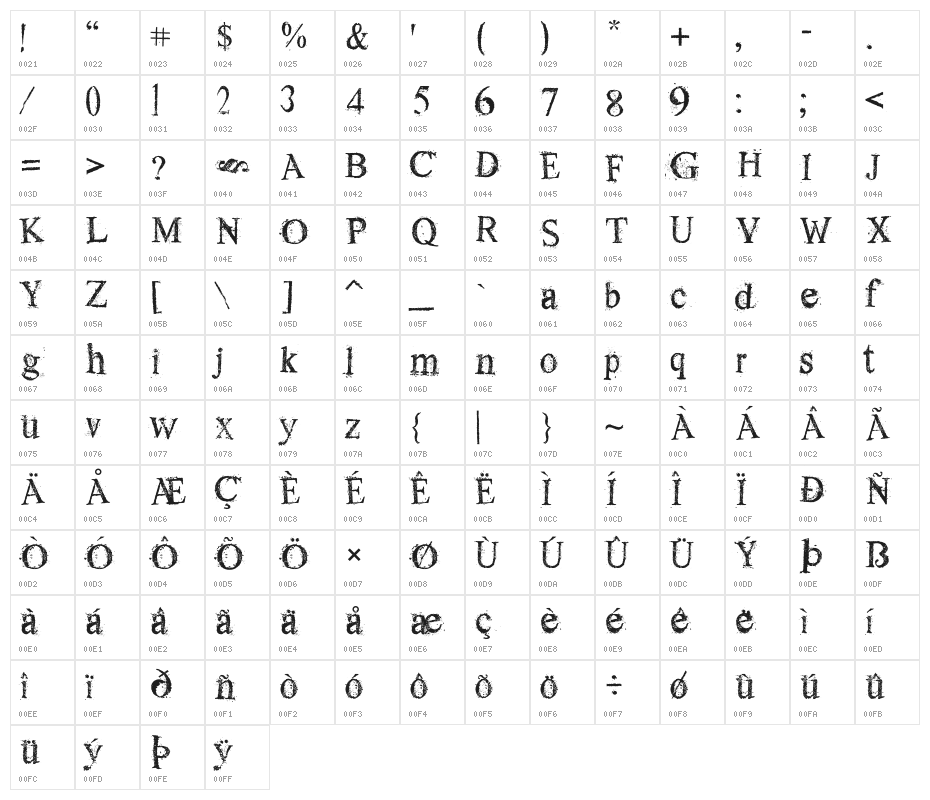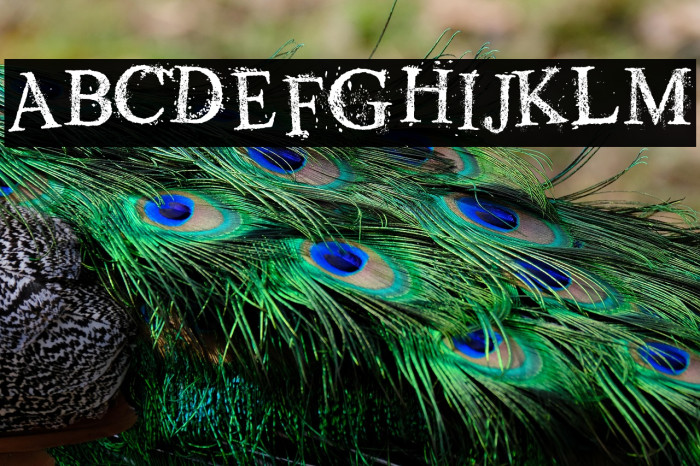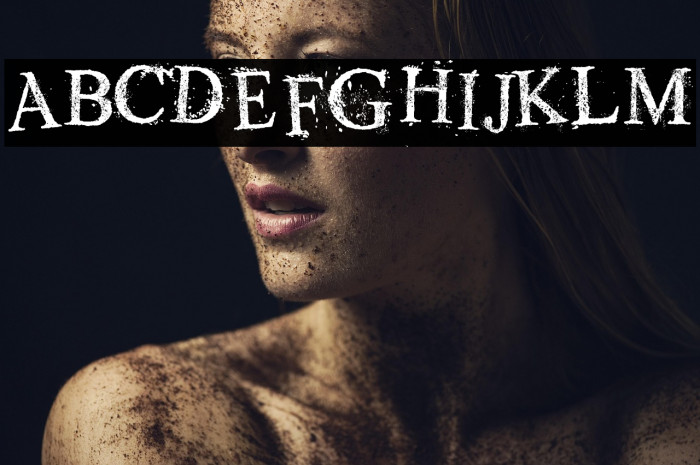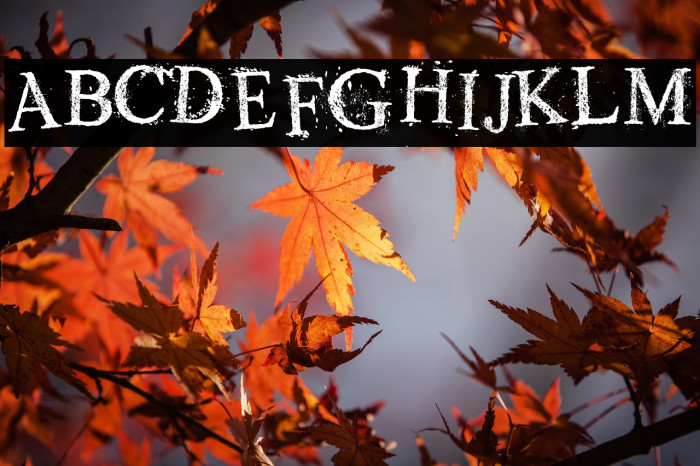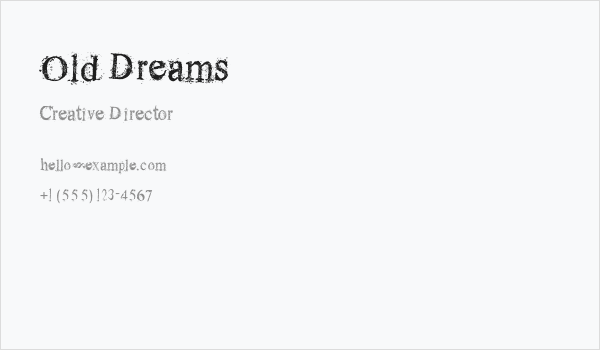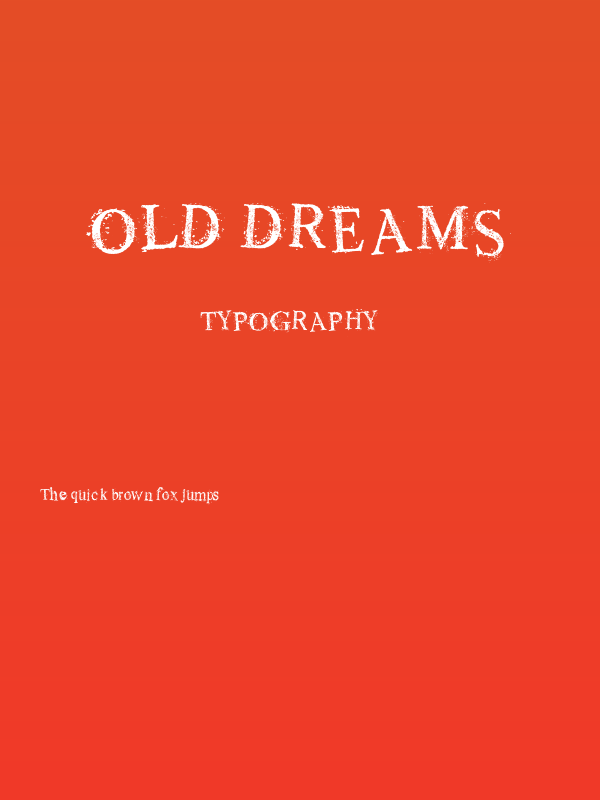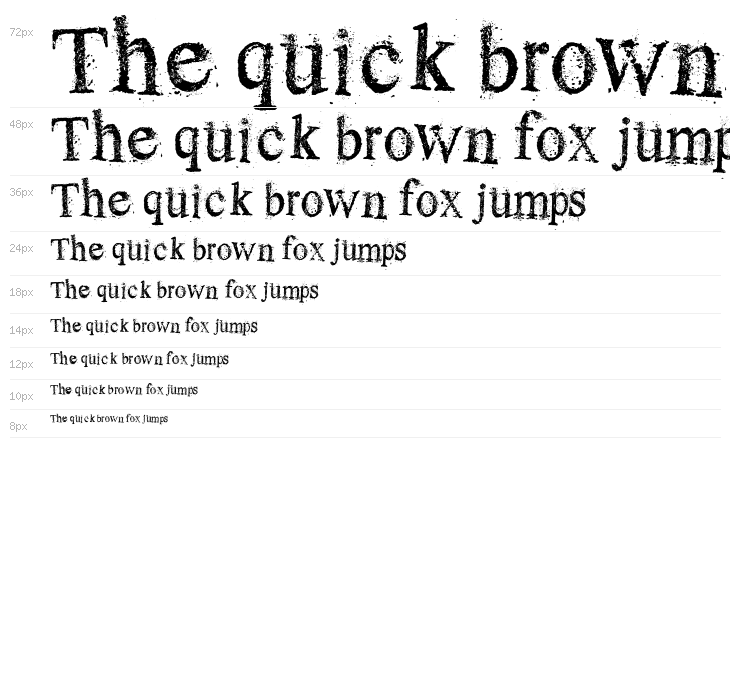
Old Dreams Font
Old Dreams Description
This font features a distressed, vintage appearance with a textured, worn-out look that gives it a unique character. The letters have a serif style, with each character exhibiting a slightly rough and uneven edge, adding to the aged effect. The uppercase and lowercase letters maintain a consistent style, with the uppercase being slightly more pronounced. Numbers and special characters follow the same distressed theme, ensuring uniformity across all glyphs. The font's overall appearance suggests a historical or antique feel, making it ideal for projects that require a touch of nostalgia or a retro vibe.
| Use Case | Headlines, Logos, Decorative text |
| Proposed Projects | Ideal for vintage posters, retro-themed designs, book covers, and branding that requires an antique touch. |